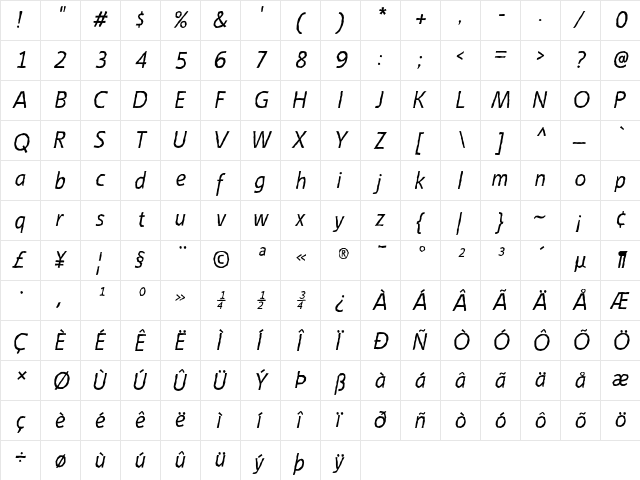
Emory Italic
Design Context for Emory Typeface
Emory is a composed and adaptable typeface that performs quietly and consistently across a wide range of design contexts. The dynamic lean of this cut emphasises speed and emphasis in any layout.
Pro Tip: Try Emory for annotation and caption copy alongside an upright companion — the contrast in angle creates a dynamic but ordered typographic system.